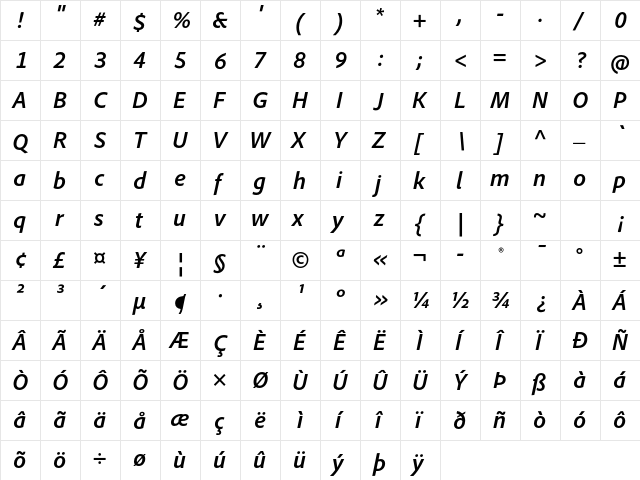
Adobe Clean Bold Italic Font Preview
Adobe Clean Bold Italic
Adobe Clean Bold Italic Font Details
| Designer | Robert Slimbach |
Design Context for Adobe Clean Typeface
Adobe Clean offers clean, dependable letterforms without strong stylistic allegiance, making it a practical choice for designers who need flexibility. Its italic angle brings a sense of urgency and motion to the letterforms. Its bold stroke weight gives it real presence on the page.
Pro Tip: Try Adobe Clean for annotation and caption copy alongside an upright companion — the contrast in angle creates a dynamic but ordered typographic system.